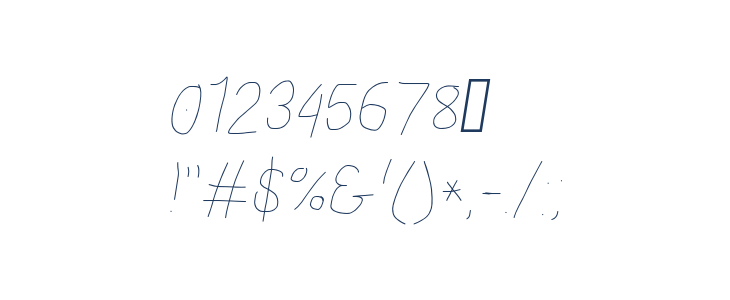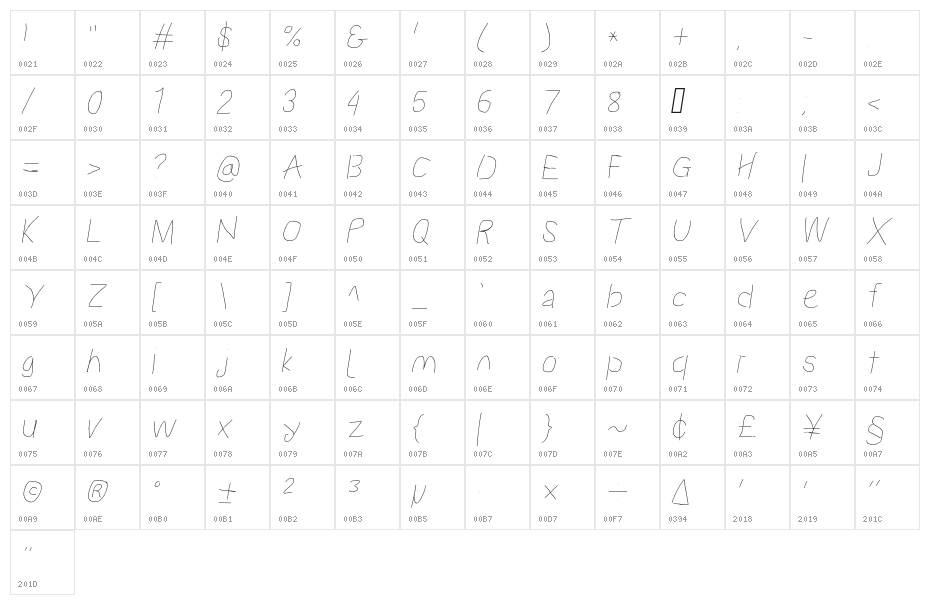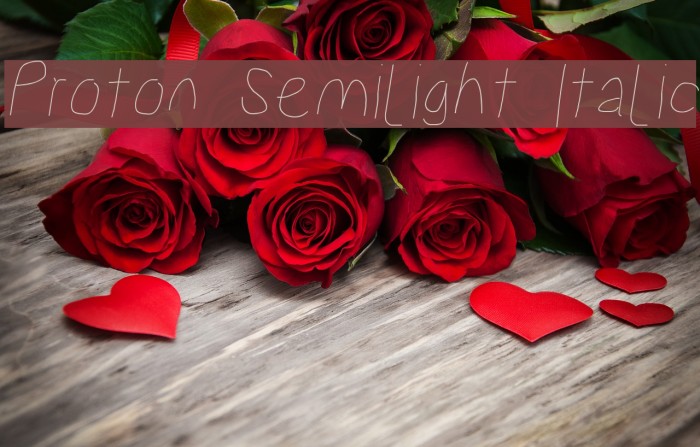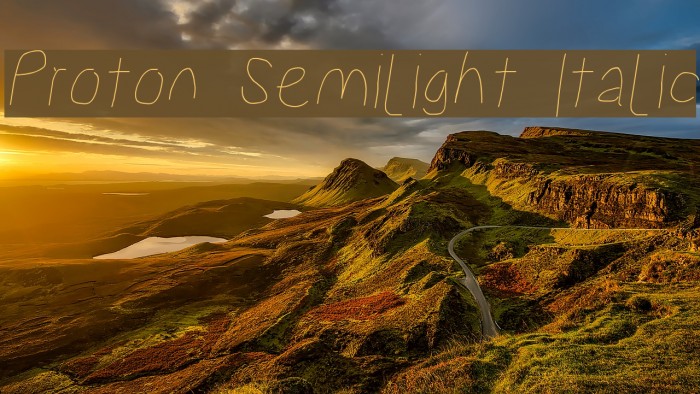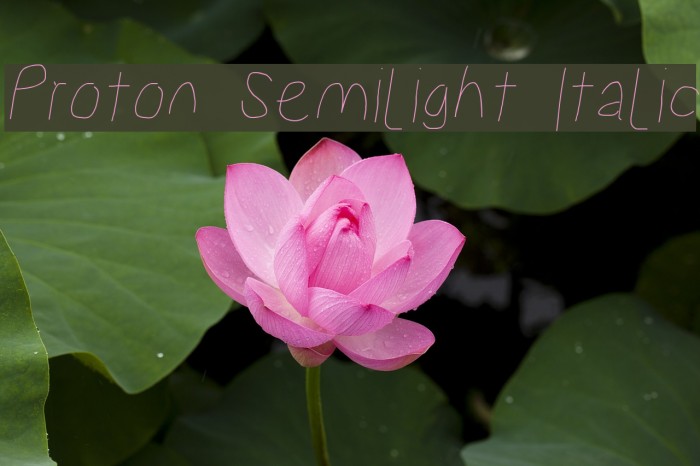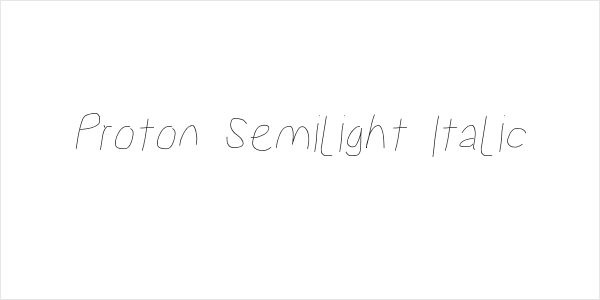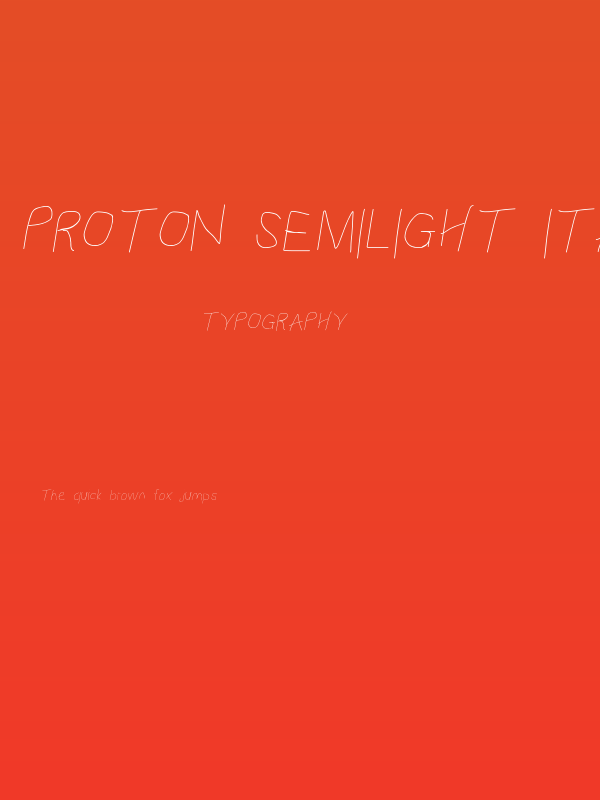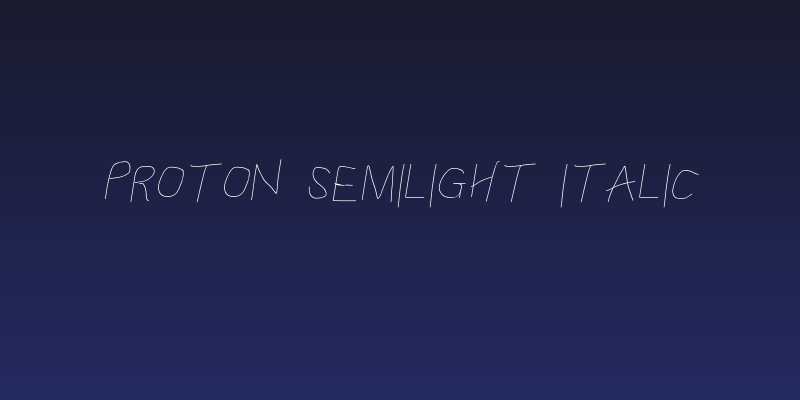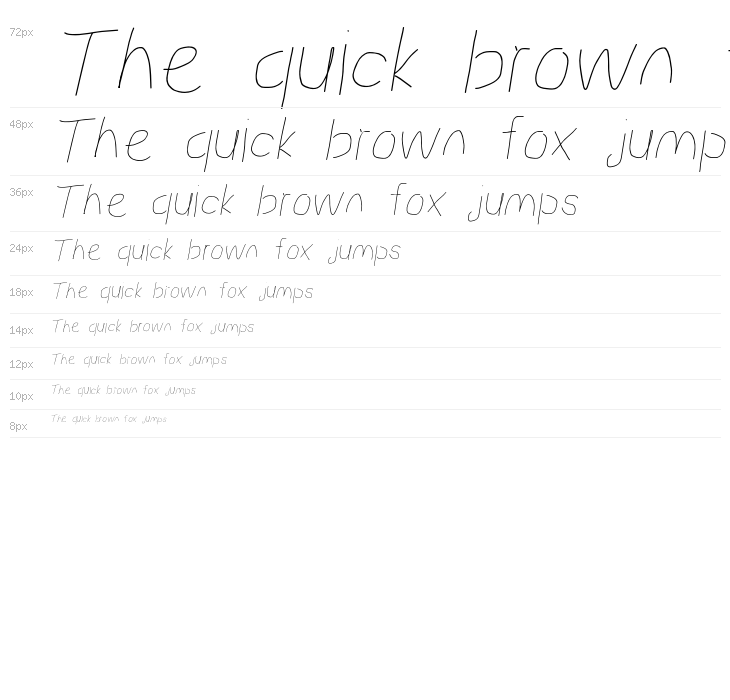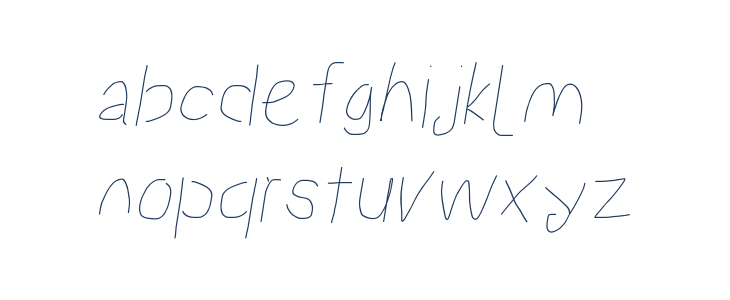
Proton Semilight Italic Font
Proton Semilight Italic Description
This font features a sleek, contemporary design with a semi-light weight and italic style. The characters are slightly slanted, giving a sense of motion and elegance. The strokes are thin and consistent, providing a clean and modern appearance. The uppercase and lowercase letters maintain a uniform height, while the numerals are distinct and easy to read. Special characters are designed with the same attention to detail, ensuring a cohesive look across all glyphs. This font is ideal for projects that require a touch of sophistication and modernity.
| Proposed Projects | Ideal for branding, editorial design, and digital interfaces where a modern and sophisticated look is desired. |